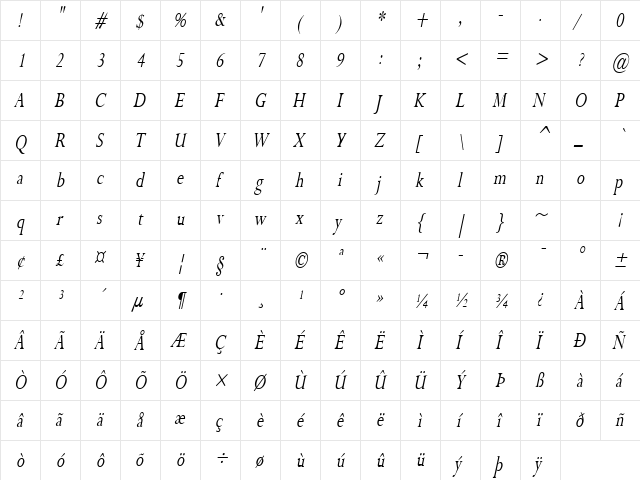
Rapid Thin Italic
Design Context for Rapid Thin Typeface
Rapid Thin is a composed and adaptable typeface that performs quietly and consistently across a wide range of design contexts. The slanted form adds forward momentum and visual energy. Its slender proportions lend an understated elegance to any composition.
Pro Tip: Try Rapid Thin for annotation and caption copy alongside an upright companion — the contrast in angle creates a dynamic but ordered typographic system.